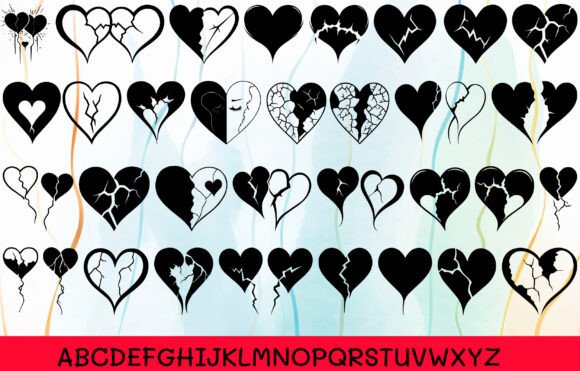
The Heartfelt Touch: Unlocking the Power of Broken Heart Heart Font
Do you remember that moment when a spark of creativity hit you, and you knew exactly what you wanted to create? For designers, it’s that ‘aha’ moment that drives us to bring our ideas to life. For me, it was the desire to infuse a sense of romance and whimsy into my designs, and that’s when I stumbled upon the Broken Heart Heart Font.
This charming digital product features 26 unique broken heart-inspired designs, each corresponding to a letter from A to Z. Whether you’re working on a Valentine’s Day campaign, a wedding invitation, or a dramatic artwork, the Broken Heart Heart Font is the perfect addition to your creative arsenal. With its versatility and emotional resonance, it’s a valuable asset for designers looking to add a touch of heart and soul to their work.
- Unique Characteristics: The font’s distinctive broken heart design elements and elegant typography make it perfect for creating visually striking and emotive designs.
Broken Heart Heart Font Review
Overall, I’d say that the Broken Heart Heart Font is an interesting experiment in typography. ✨ There are some aspects of it that work well, but it also has some limitations that make it less versatile than other fonts.
- Unique Concept: The Broken Heart Heart Font’s idea of combining two hearts into one is visually striking and immediately conveys a sense of love and heartbreak.
- Emotional Expression: The font effectively captures the emotional depth of a broken heart, making it a great choice for projects that need to convey a strong emotional message.
- Playful Touches: The font’s playful, handwritten feel adds a lighthearted touch that can be perfect for projects that need to balance seriousness with a sense of humor.
- Readability: The font’s unique design can make it difficult to read, especially in large blocks of text. ⚠️ This can be a problem for projects that require clear, easy-to-read text.
- Versatility: The font’s theme is quite narrow, making it less suitable for projects that need a more general-purpose font.
- Customization: The font’s design may limit the extent to which it can be customized or adapted for different projects.
In conclusion, the Broken Heart Heart Font is a creative, visually striking option for projects that need to convey a strong emotional message. However, its limitations in terms of readability, versatility, and customization make it less suitable for more general-purpose projects.
Use the “Broken Heart Heart Font” to add a touch of whimsy and romance to your designs.
It’s perfect for Valentine’s Day, wedding invitations, and love-themed graphics.
To get the most out of the font, experiment with different colors and combinations of text and graphics.